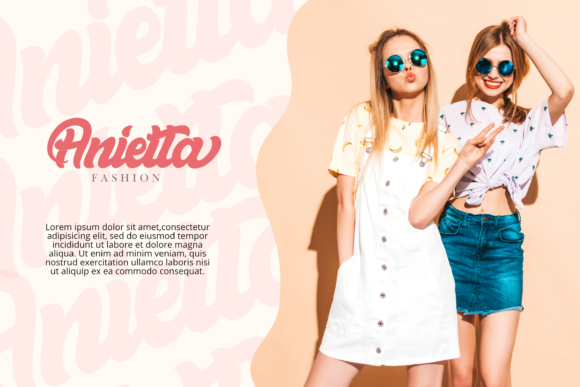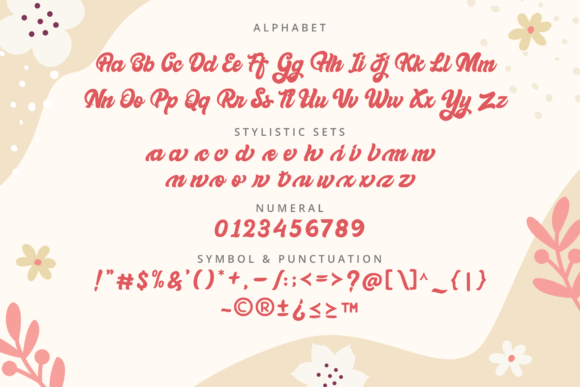
Bellynice Font
db-ku.com - Script & Handwritten -- The Bellynice is a bold script font. It was inspired by jelly fat and is perfect for adding a striking look to your designs.